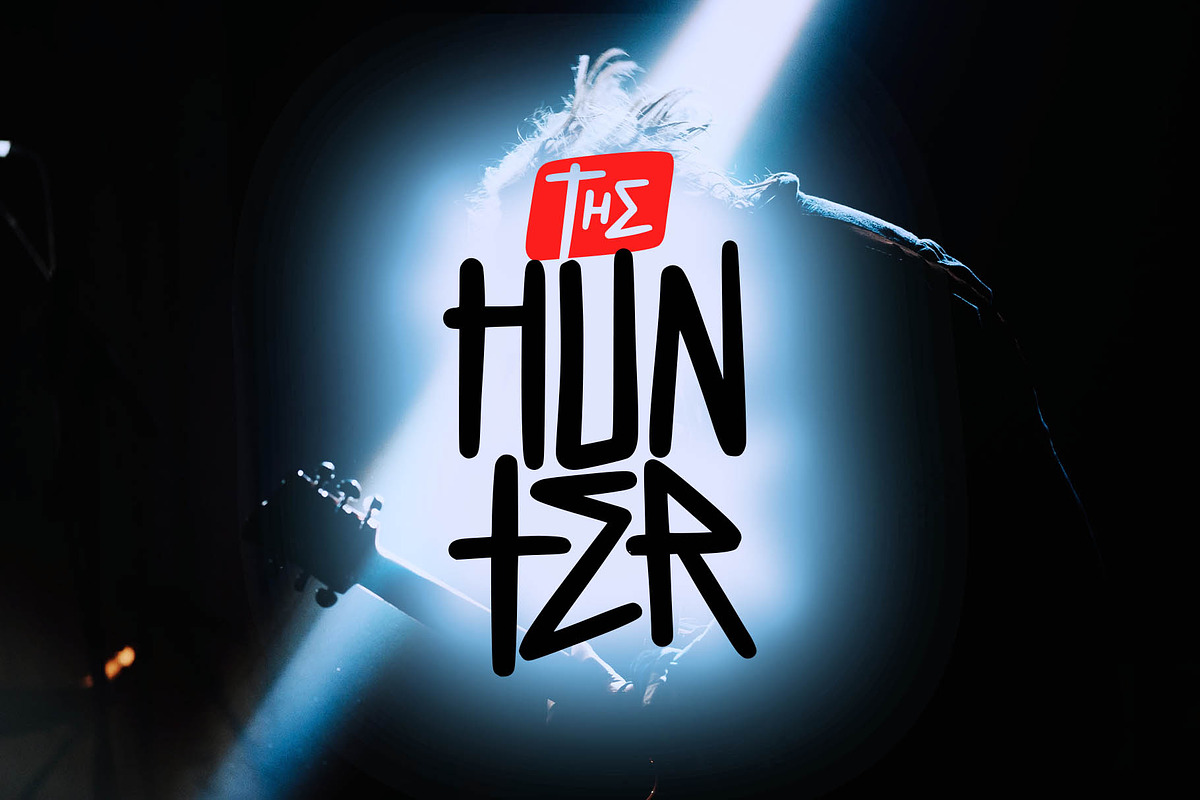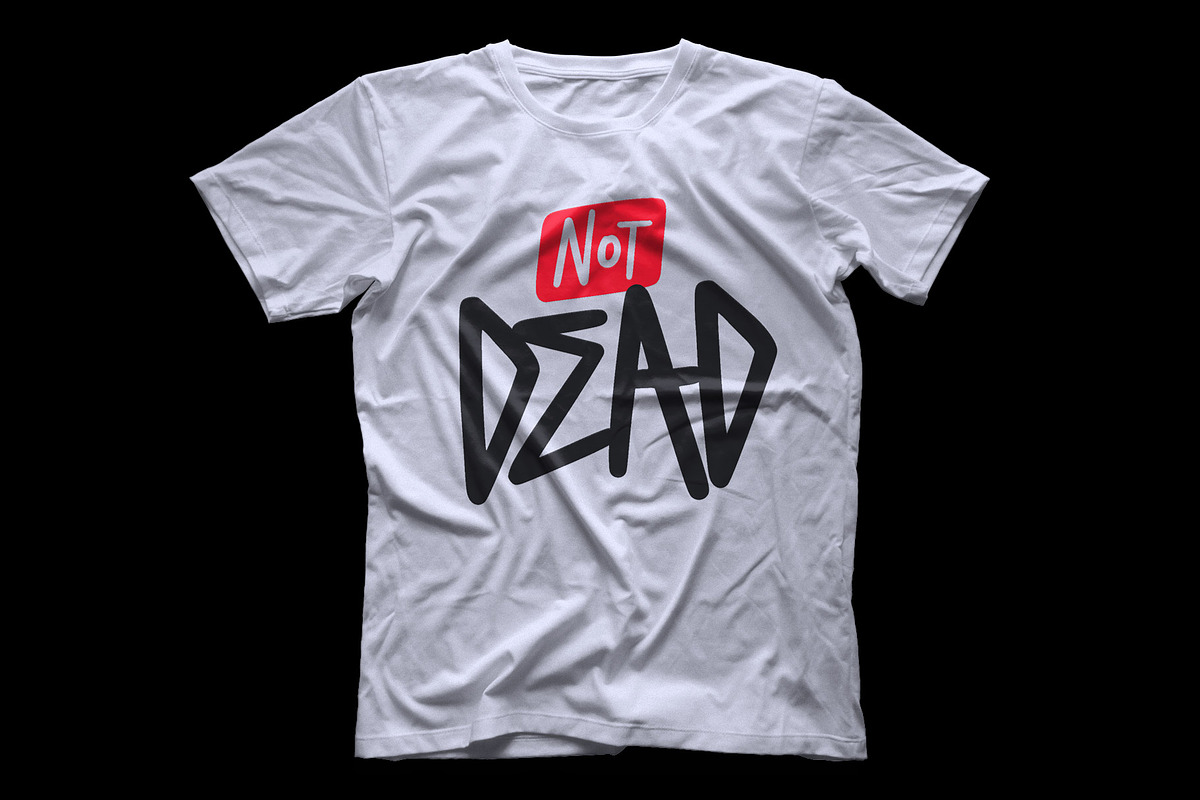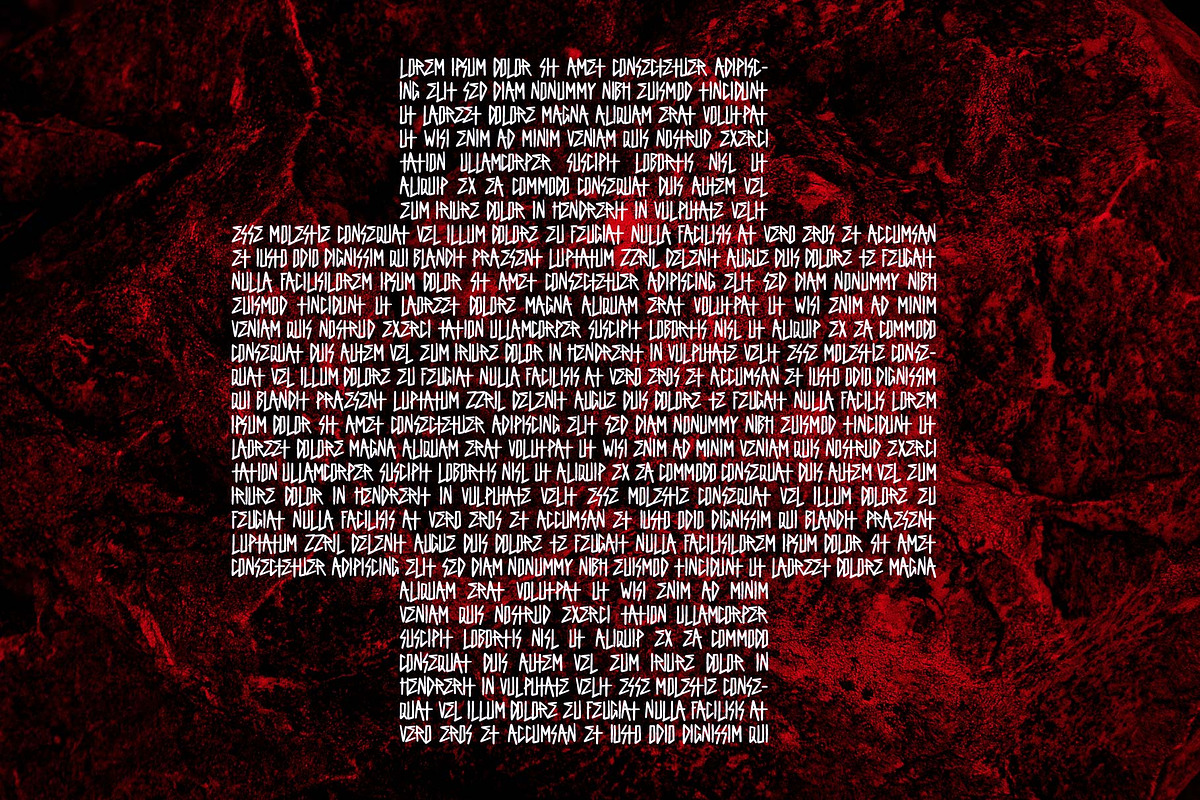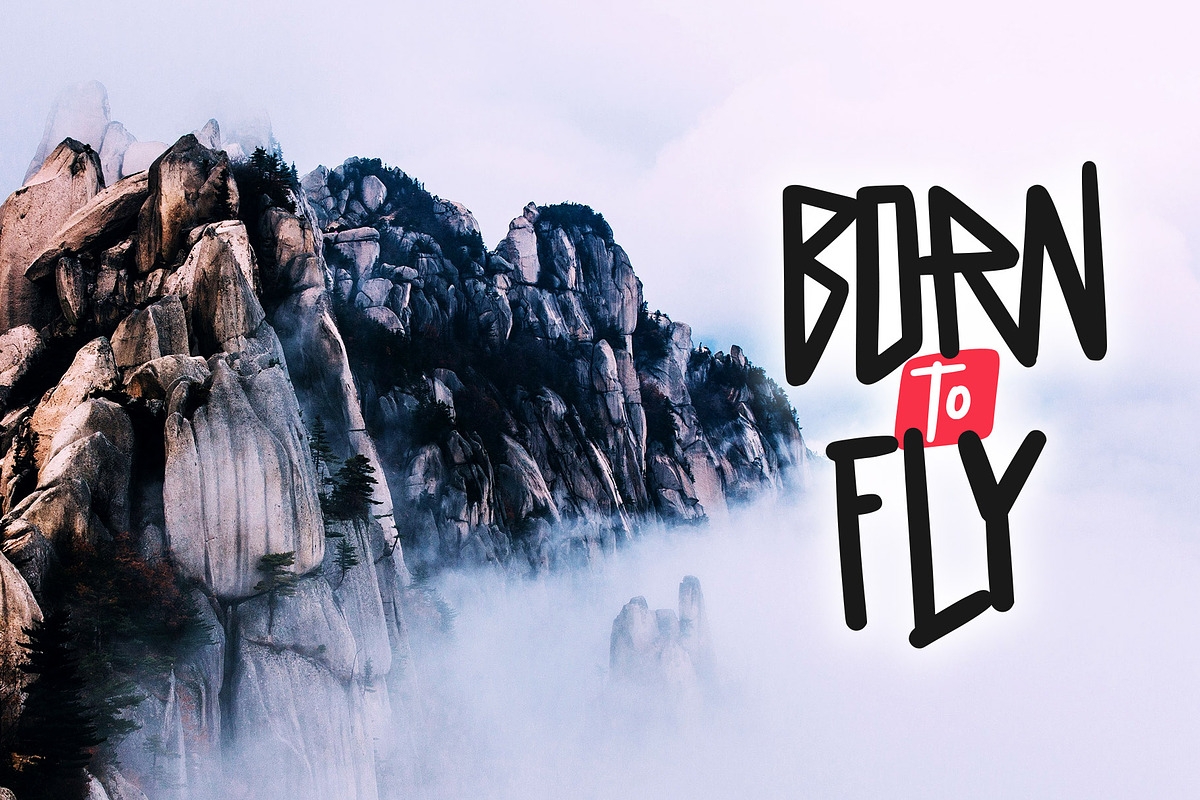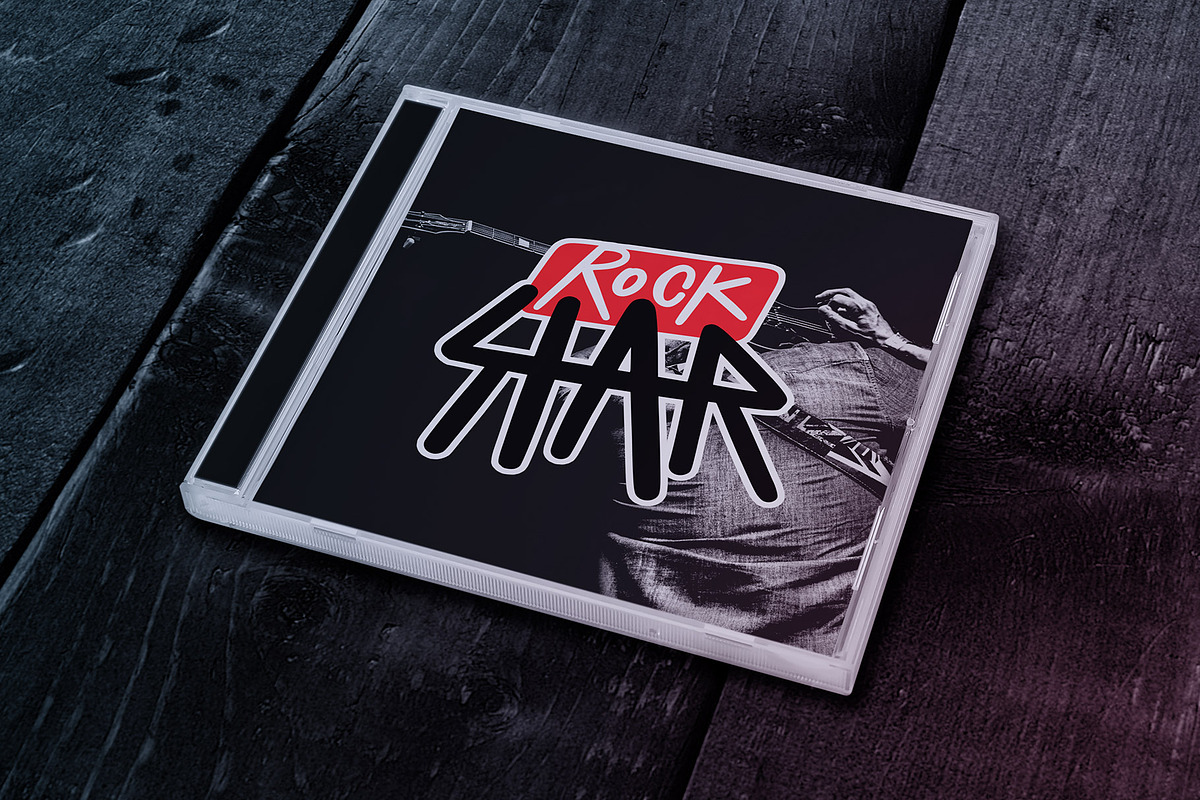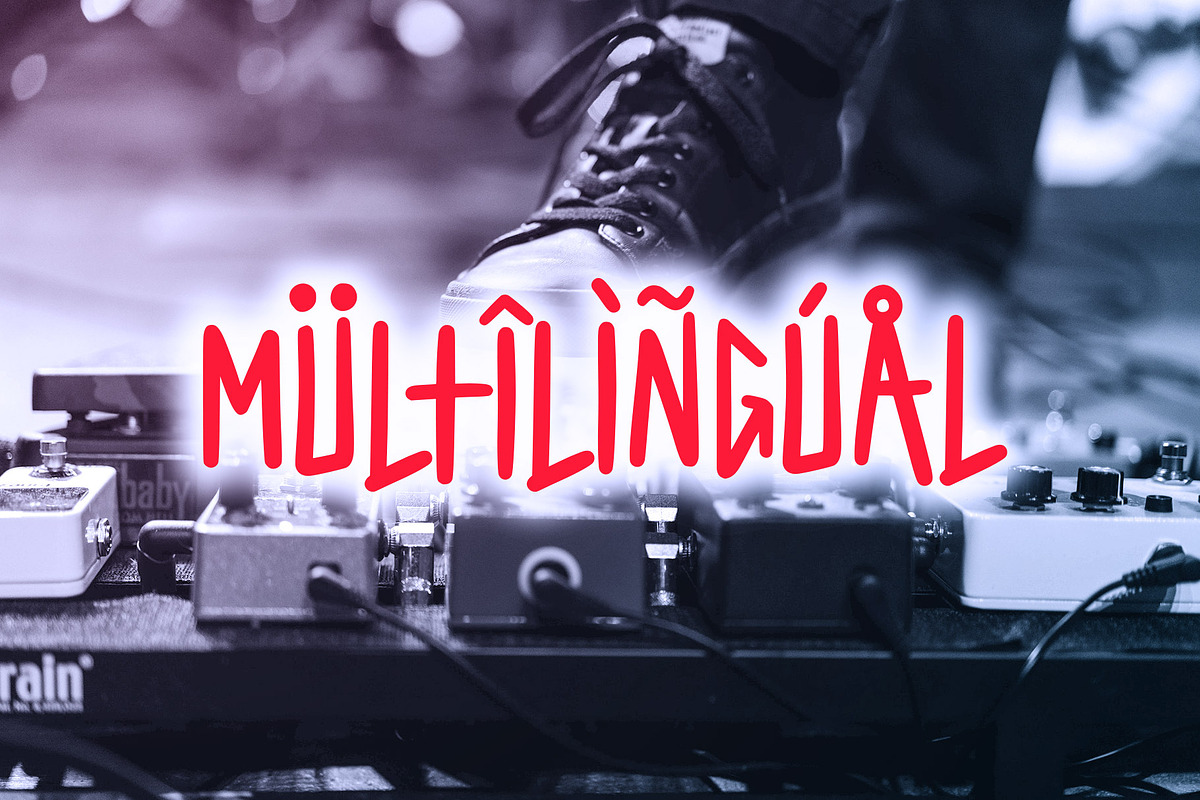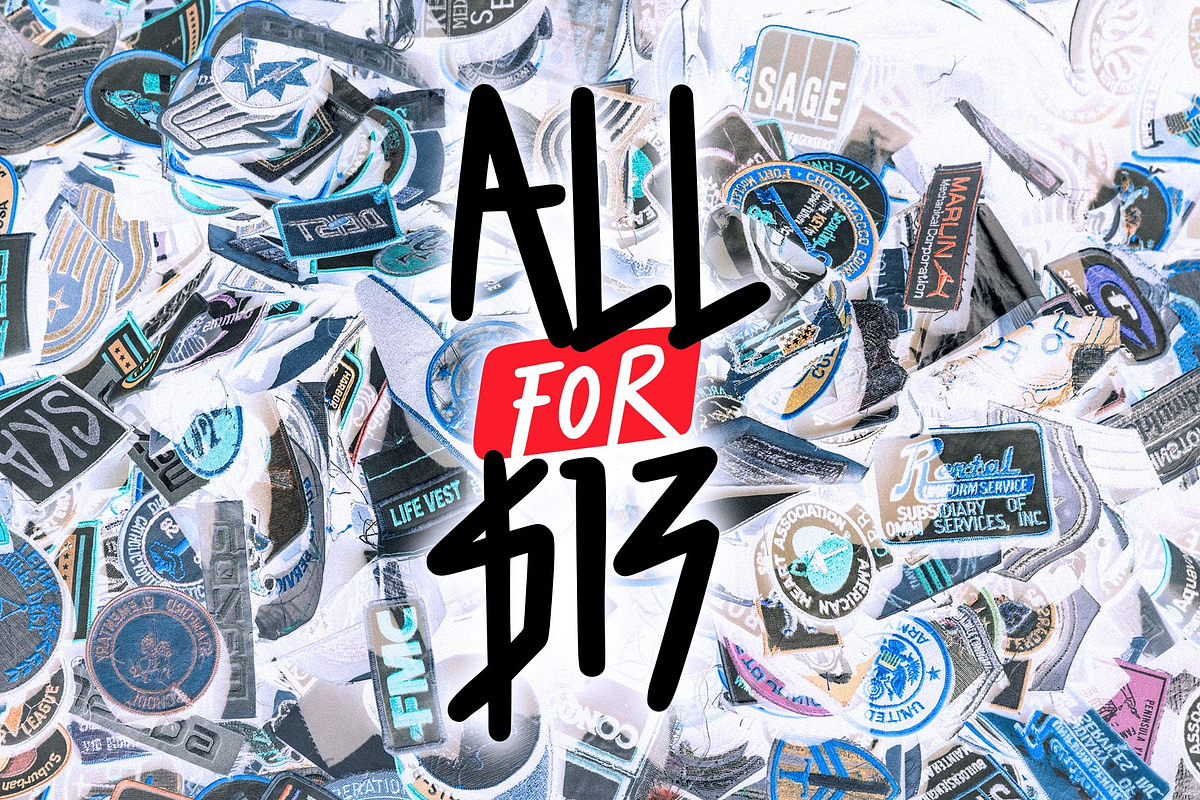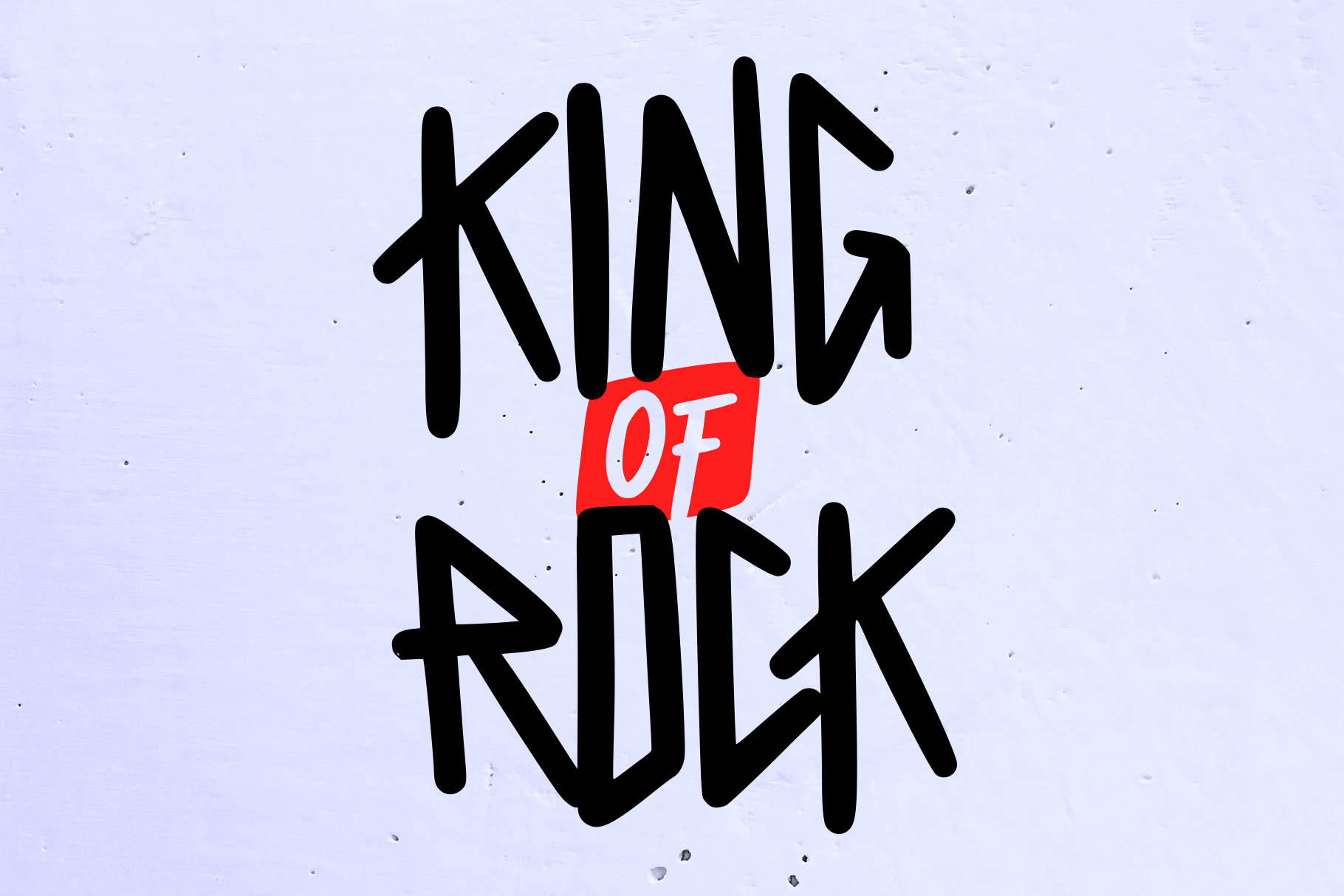
King of Rock Heavy Metal Font
King of Rock is a decorative, heavy metal and punk rock music inspired modern typeface. This all caps font includes punctuation and numerals. It is perfect for:
- Logos
- Posters
- Headlines
- Apparel
- & more
Stay true! Stay rock and roll!